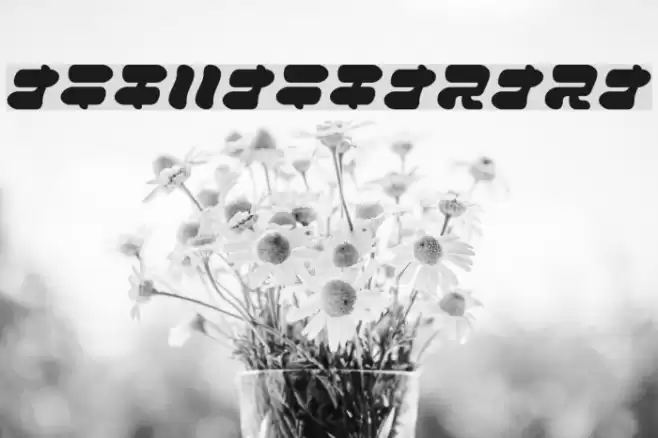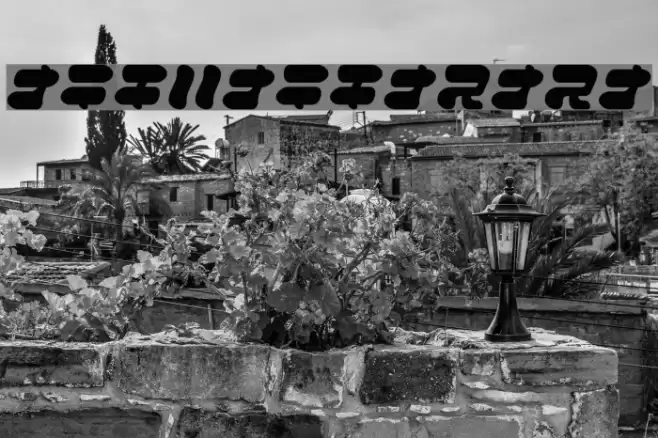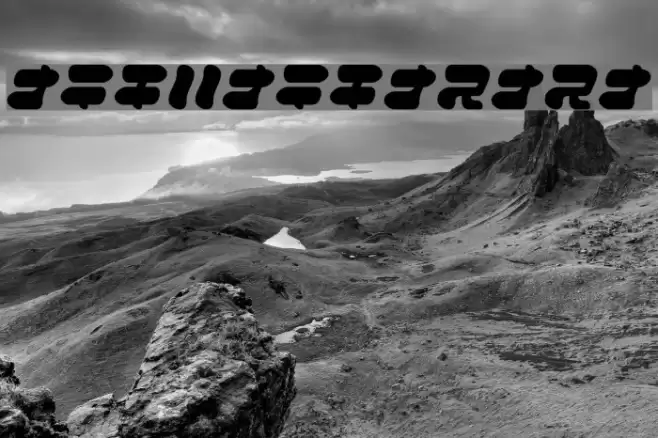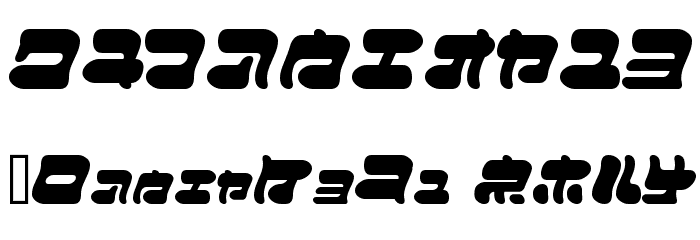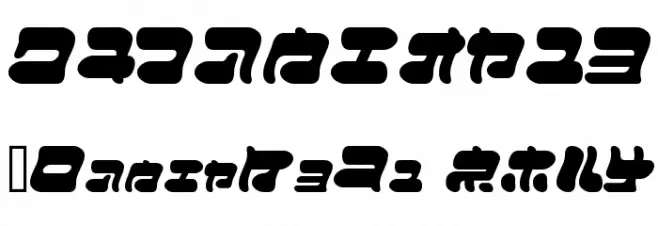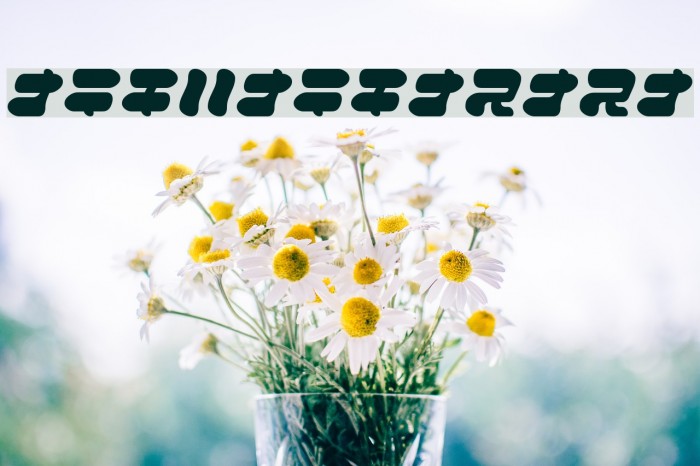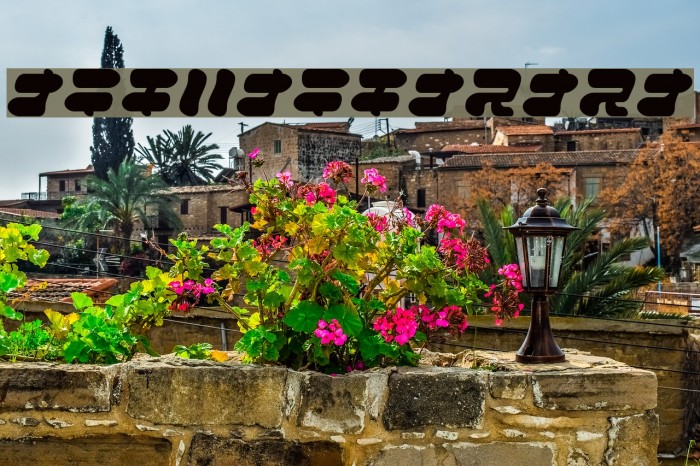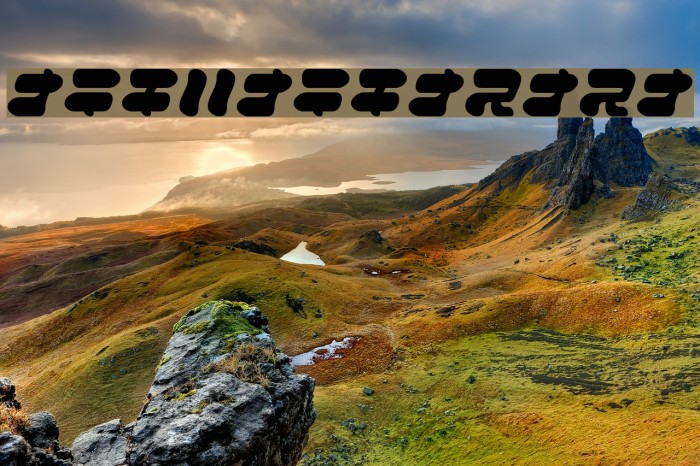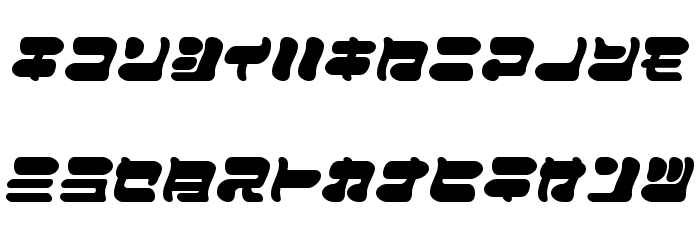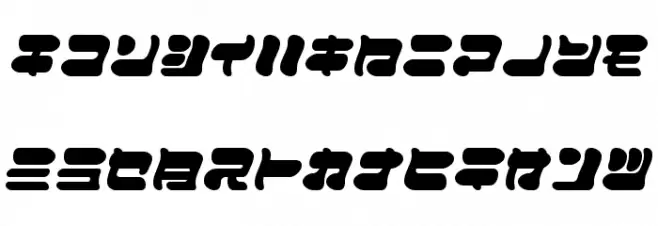
FuwafuwaFururuKW Font
FuwafuwaFururuKW Description
This font features a playful and bold design with rounded, bubble-like characters. The strokes are thick and uniform, creating a sense of fun and whimsy. The characters are highly stylized, with a unique blend of curves and angles that give them a distinctive appearance. The overall look is modern and eye-catching, making it suitable for creative and informal applications. The font maintains a consistent weight throughout, contributing to its bold presence. Its unique style makes it stand out, perfect for projects that require a touch of creativity and flair.
A playful, bold font with rounded, bubble-like characters from Asian fonts.
- Proposed Projects: Ideal for children's books, playful branding, posters, and creative digital content.